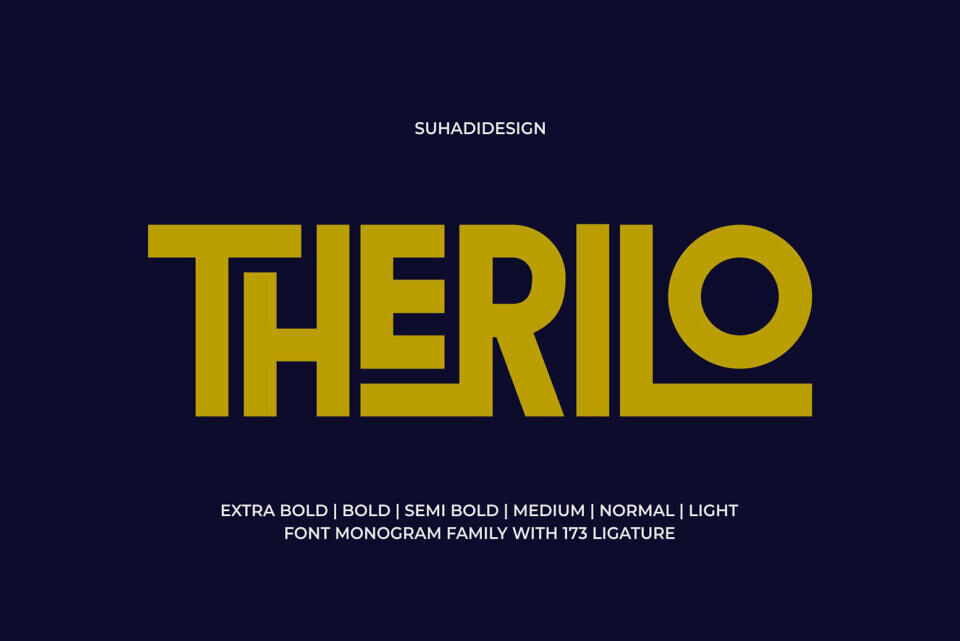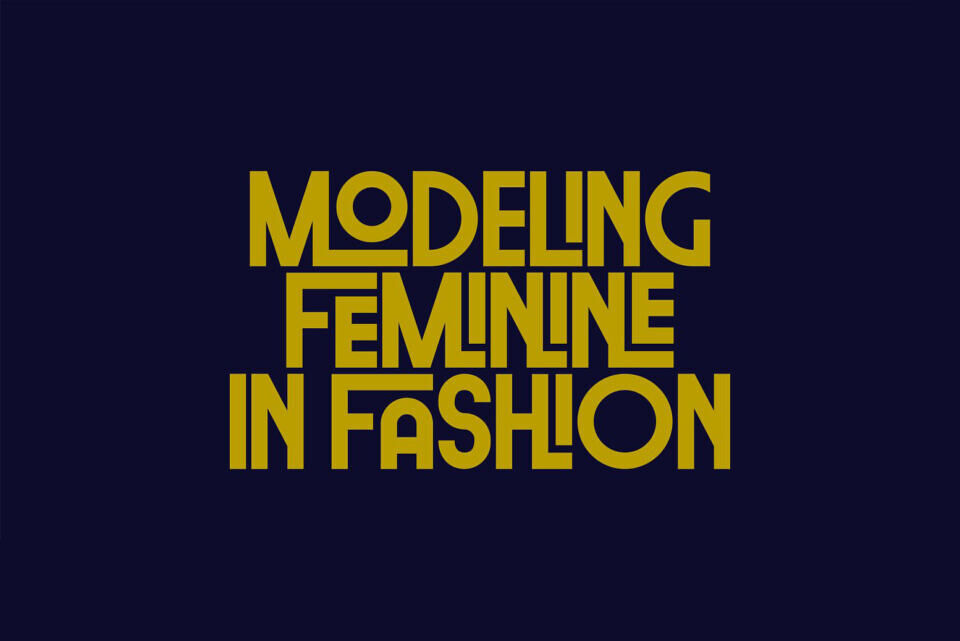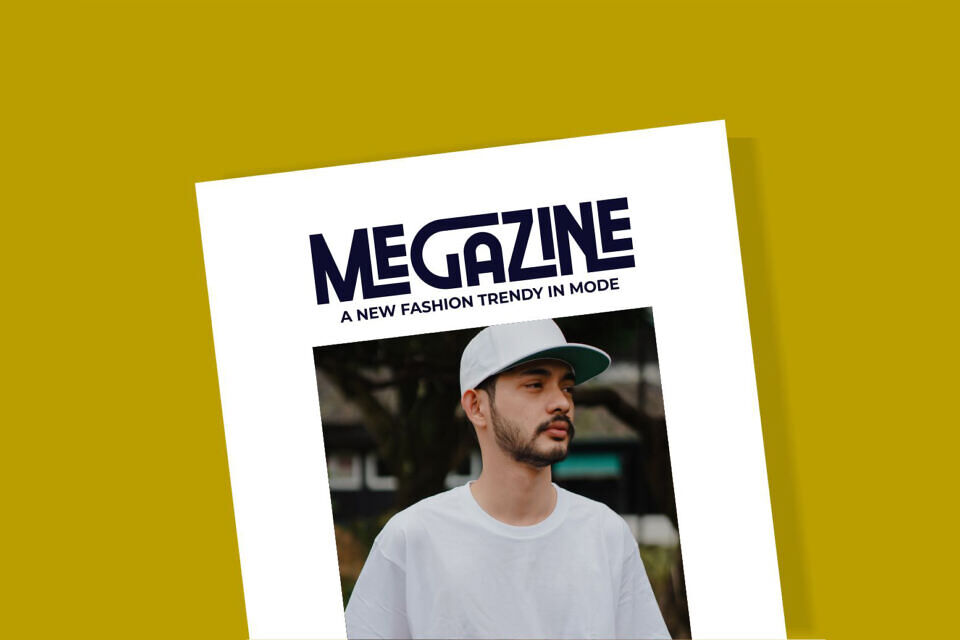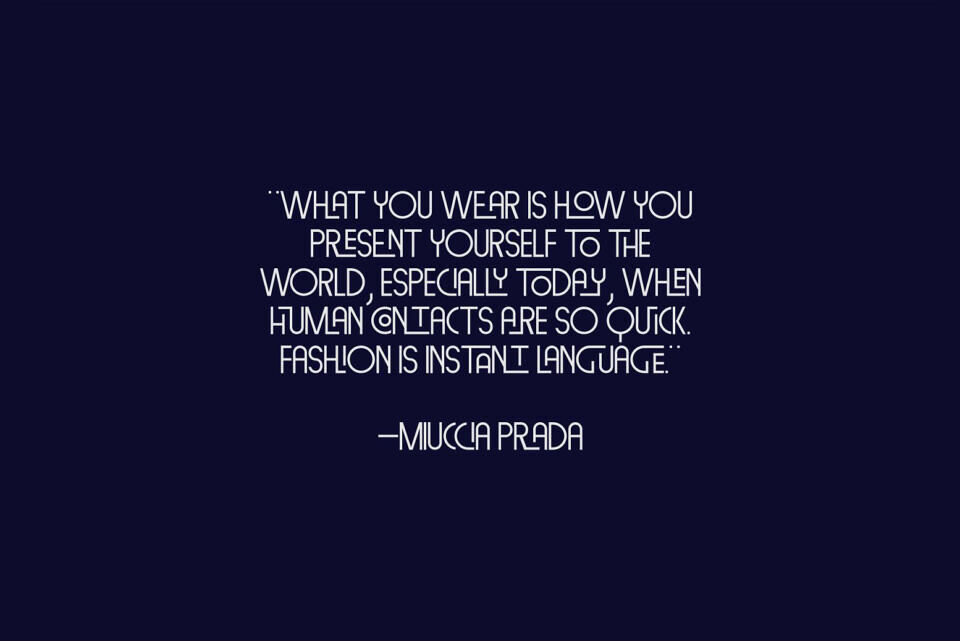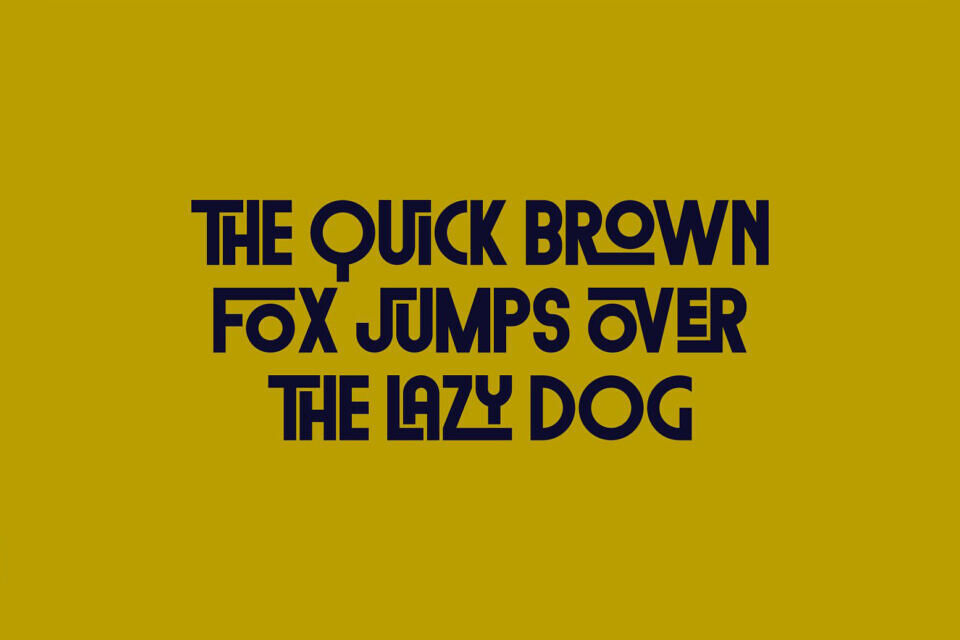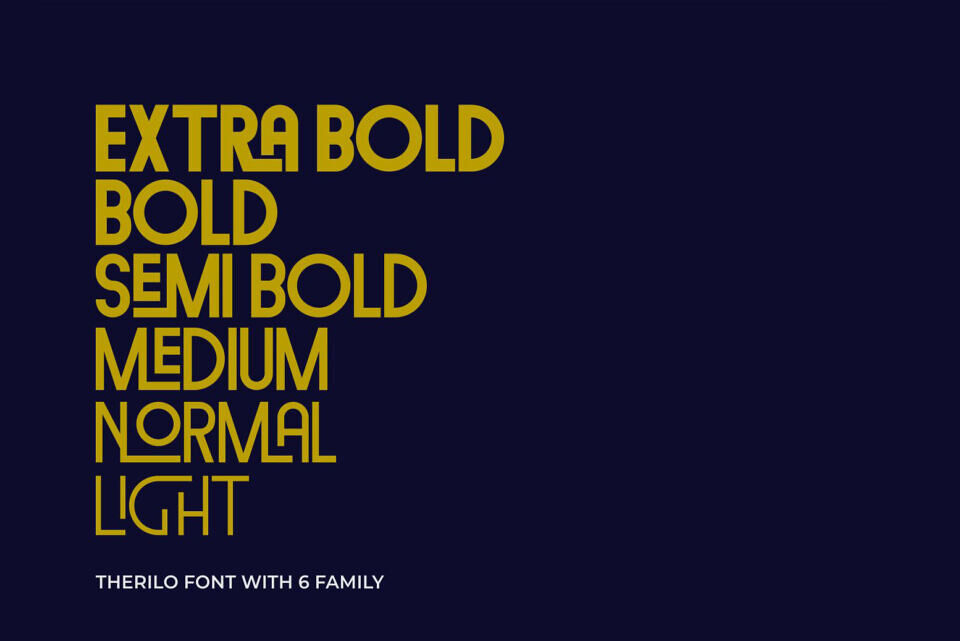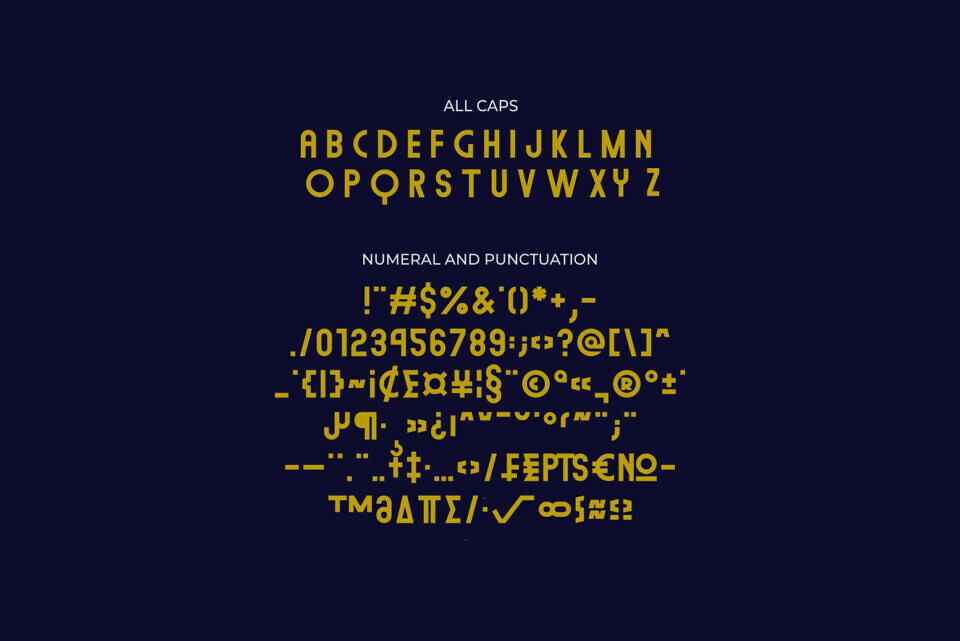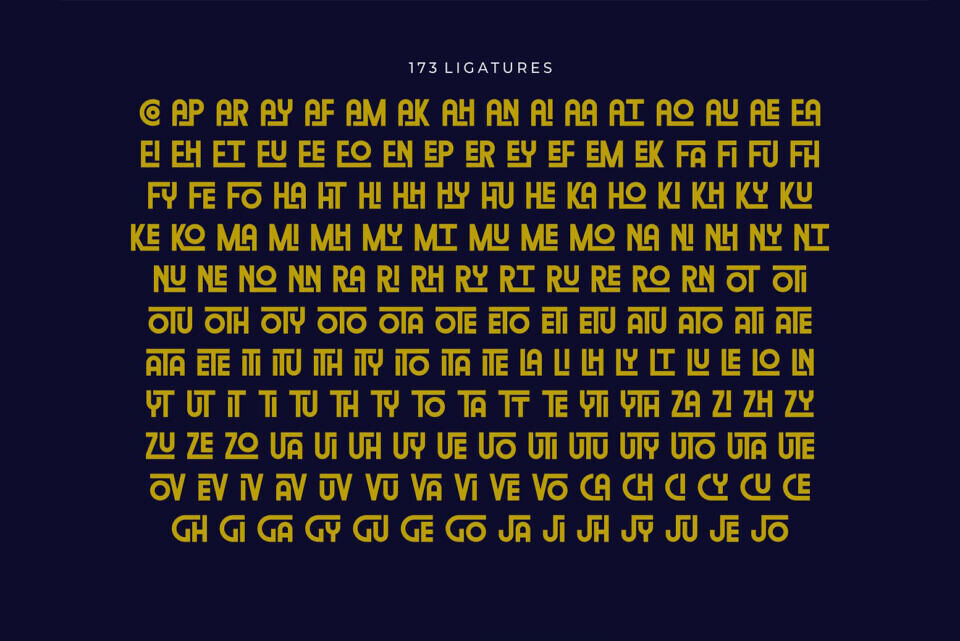
Therilo Font
Therilo font is a modern sans serif font with 173 ligatures, presented in a modern style with the hope of becoming a market favorite. We keep this font looking elegant, classy, ​​modern, stylish, up-to-date and easy to use.
Therilo Font is a great choice for logos, labels, fashion, posters, banner, bags, brands, fashion, brand names, brands, quotes and other projects.